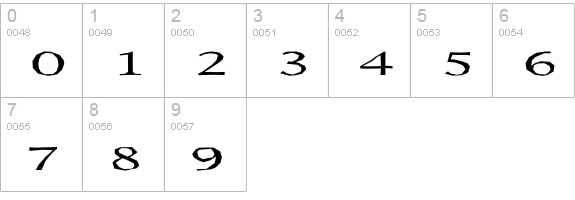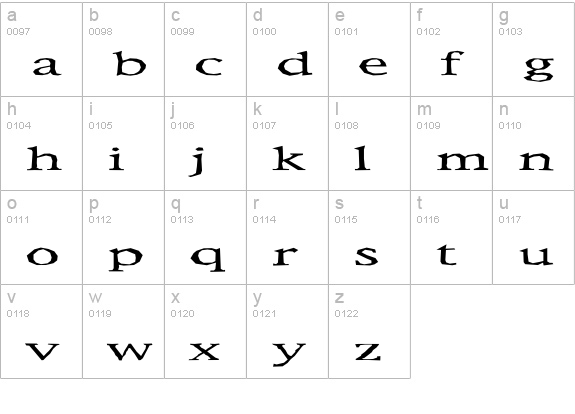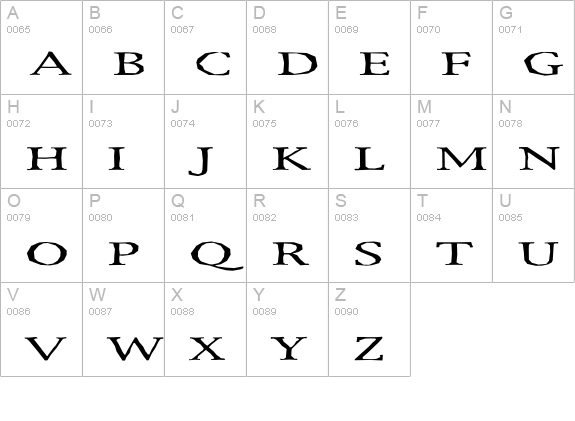
Metaphor Font Details
Metaphor font is a stunning and versatile typeface that seamlessly blends modern aesthetics with classic elegance. Its sleek lines and sophisticated curves make it perfect for a wide range of design projects, from branding to editorial layouts. With its unique blend of contemporary style and timeless appeal, Metaphor font is sure to make a powerful statement in any design. What sets Metaphor font apart is not just its beauty, but also its accessibility. This font is available for free download at FontsMarket.com, making it easy for designers and creatives to access and use in their projects. Whether you're working on a print publication, website design, or any other creative endeavor, Metaphor font is the perfect choice to add a touch of refinement and flair. Download Metaphor font today at FontsMarket.com and elevate your designs with this exquisite typeface that combines elegance with ease of use.